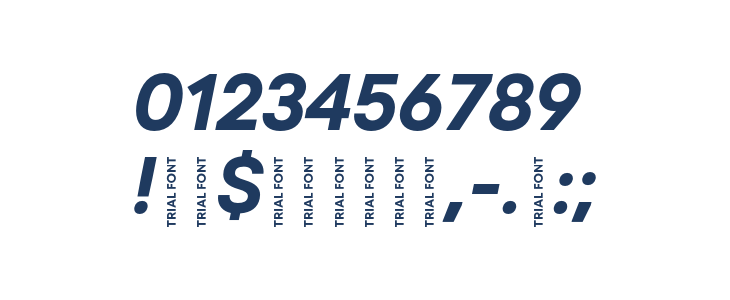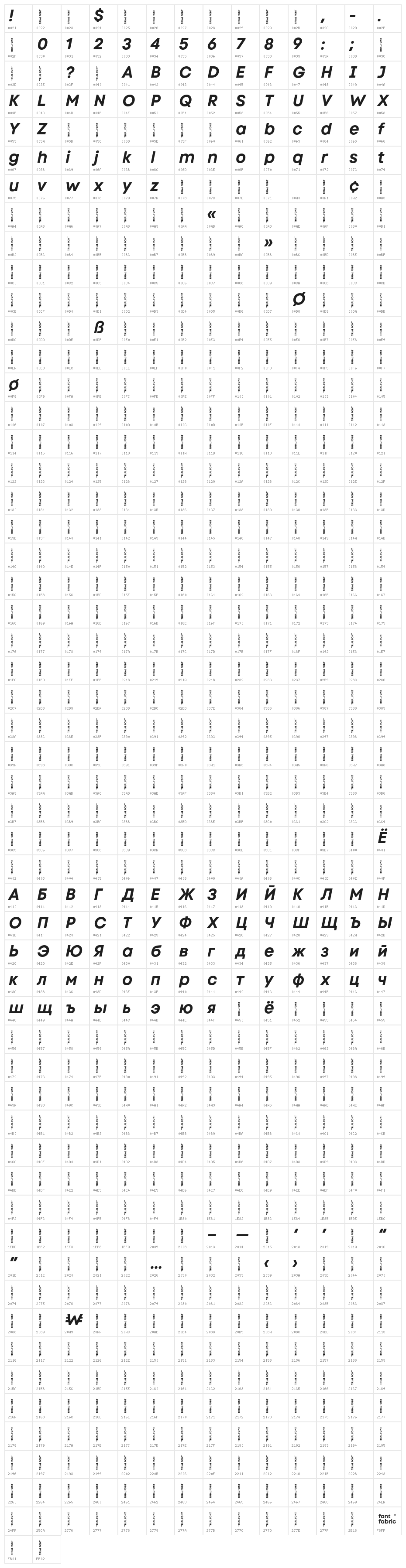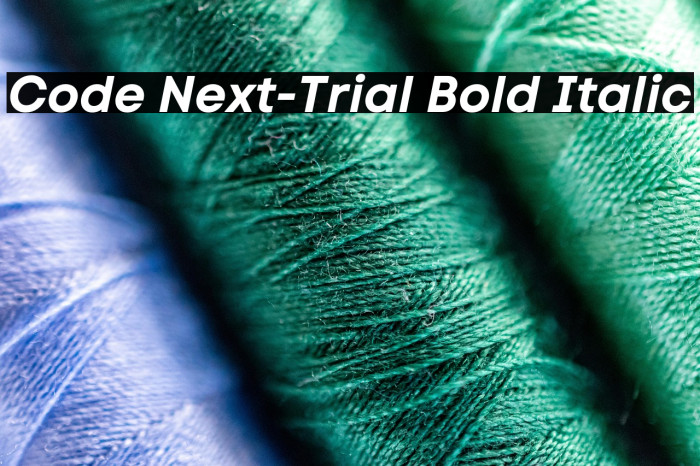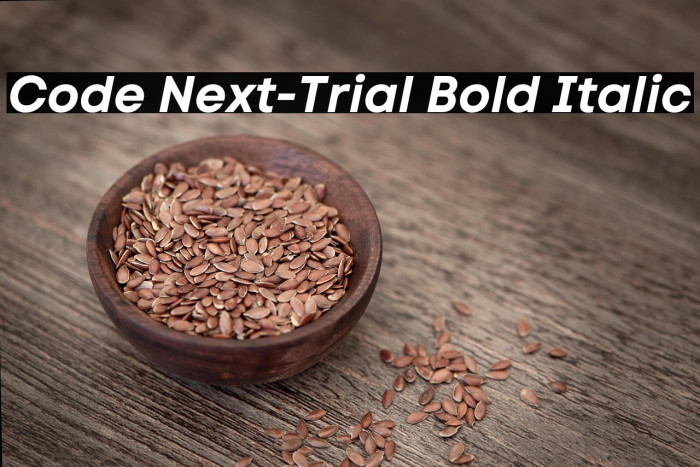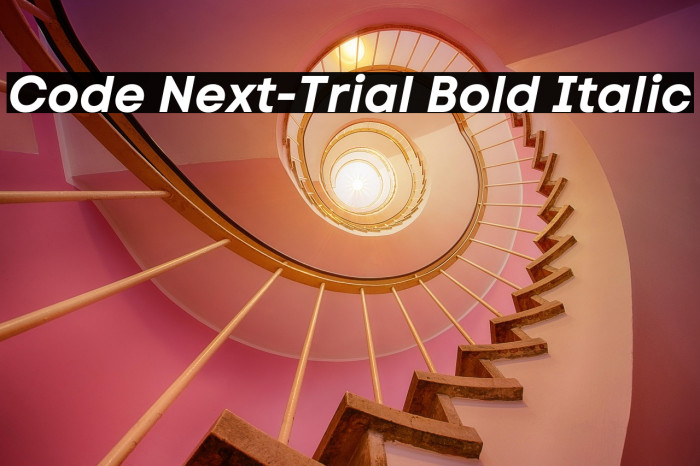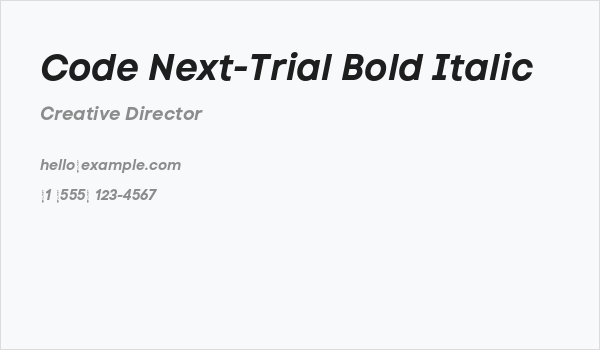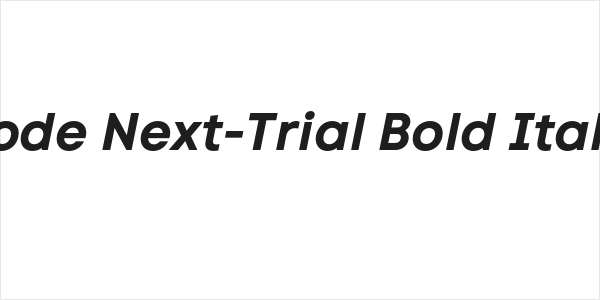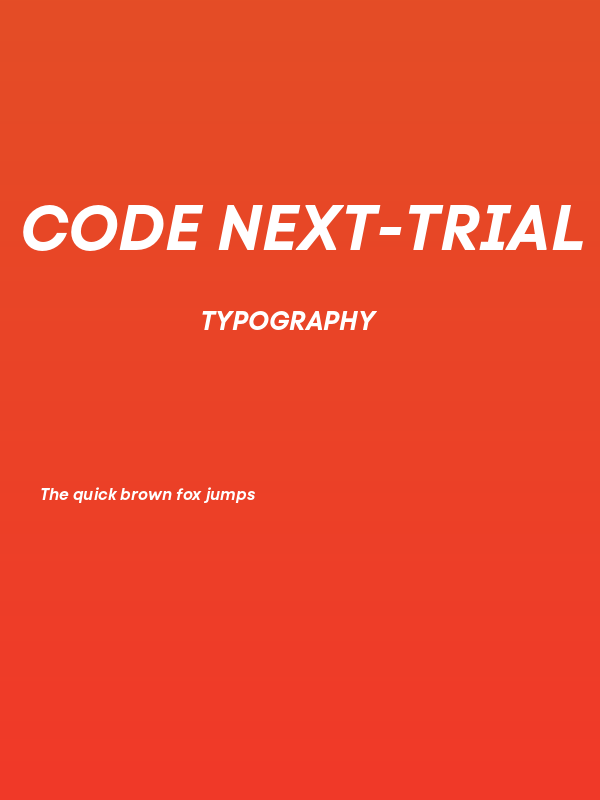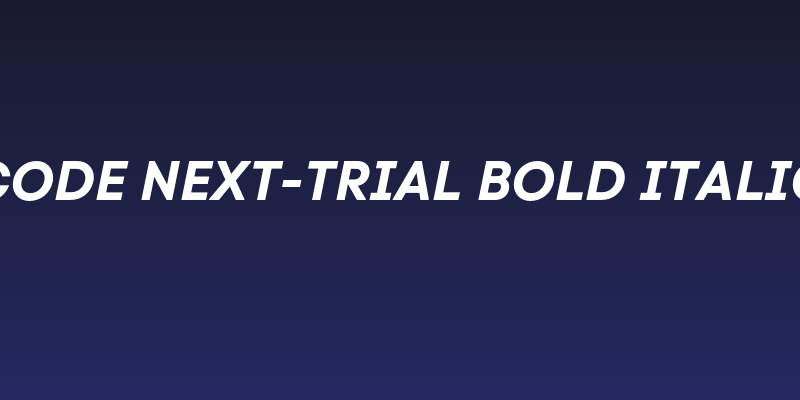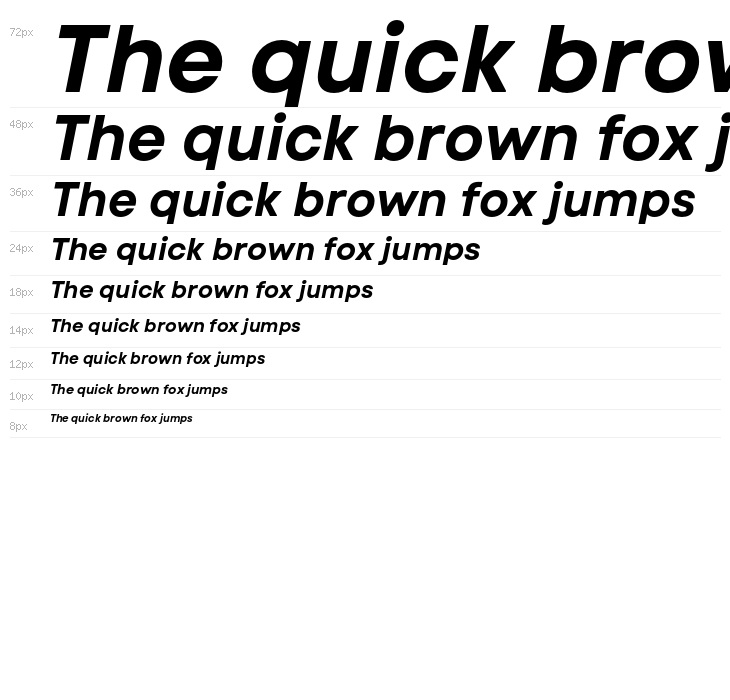
Code Next-Trial Bold Italic Font
Code Next-Trial Bold Italic Description
This font exhibits a bold and italicized style, characterized by its strong and dynamic presence. The letters are slanted, adding a sense of motion and energy. The strokes are thick and consistent, giving it a robust appearance. The font maintains a clean and modern aesthetic, with smooth curves and sharp edges that enhance readability. It is versatile, suitable for both digital and print media, and can effectively capture attention in various design contexts. The numerals and special characters are designed with the same boldness, ensuring uniformity across all glyphs.
| Use Case | Headlines, Logos, Advertising |
| Proposed Projects | Ideal for branding, advertising, headlines, and digital media projects where a strong and modern impression is desired. |